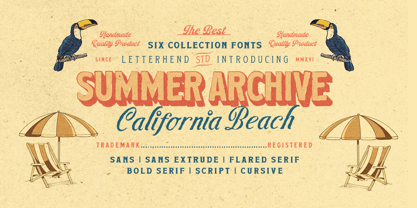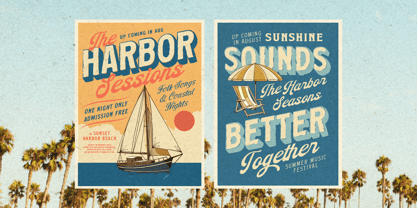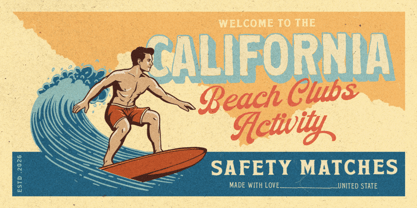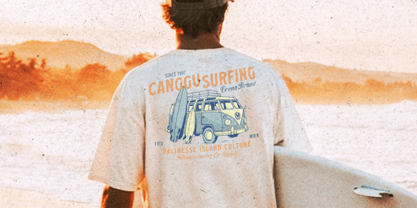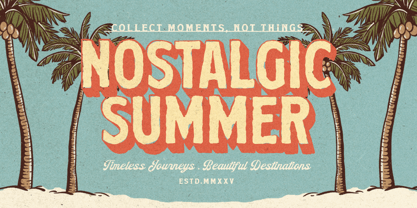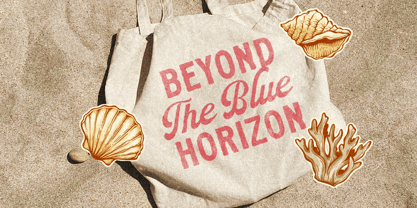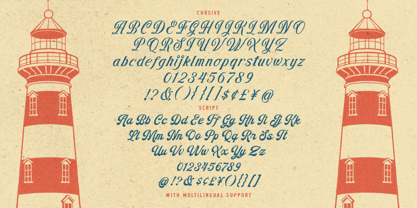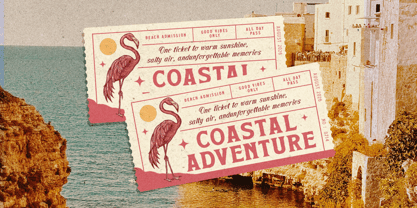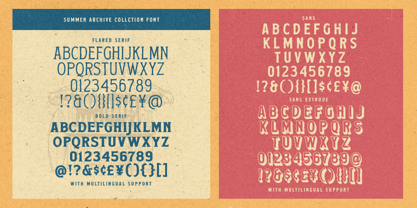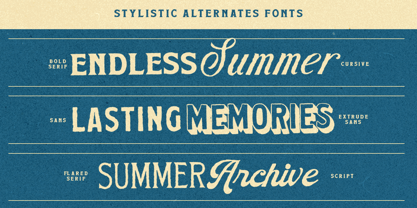
Summer Archive
by Letterhend
The Summer Archive Font Family was designed by Hendry Juanda and published by Letterhend. Summer Archive contains 6 styles and family package options. More about this family
One collection you’ll keep coming back to. _Long days by the shore, vintage postcards, and classic California beaches come together in Summer Archive. Featuring six coordinated styles—bold serif, flared serif, sans, extrude sans, script, and cursive—this retro-inspired collection makes it easy to create authentic posters, branding, packaging, and signage.